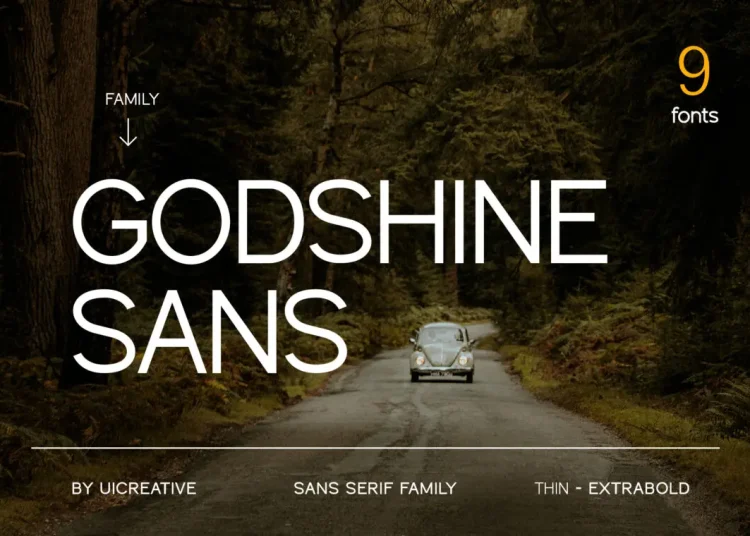
Godshine Sans Font
Introducing Godshine Modern Sans Serif Font, a contemporary typeface exuding sophistication, elegance, and fashion-forward flair. Its sleek lines and refined aesthetic make it a versatile choice for a myriad of creative endeavors. From crafting the perfect signature to adorning stationery, logos, and wedding invitations, Godshine lends an air of refined charm to any project.
This versatile font transcends boundaries, finding its place seamlessly in typographic quotes, magazine covers, book headers, and branding ventures. Its inherent elegance makes it particularly well-suited for fashion-related branding and editorial design, striking a delicate balance between modernity and femininity.
Godshine Sans Font is not just a typographic tool; it’s a statement of style and grace. Whether gracing the pages of a high-end publication or adding a touch of sophistication to your personal stationery, Godshine elevates every design it touches.